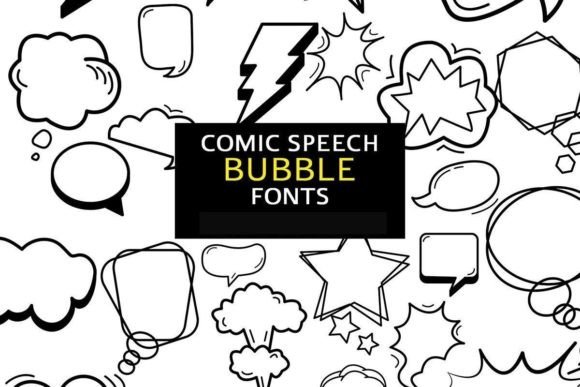
Introducing Comic Speech Bubble Font, the ultimate dingbat font that will add a touch of fun and cuteness to any project! Created by digitalplannerland, this font is not just your ordinary dingbat font - it is the Best Font For Web Browser.
With its captivating design and eye-catching appeal, Comic Speech Bubble Font is perfect for those who want to add a playful and whimsical touch to their creations. Whether you're designing a website, creating social media graphics, or working on a craft project, this font will bring your ideas to life in the most delightful way.
One of the greatest strengths of Comic Speech Bubble Font is its versatility. It can be used in a wide variety of projects, making it a must-have for designers and crafters alike. From planners and diaries to activity books and invitations, this font will take your creations to a whole new level.
Imagine creating a web page that instantly grabs your visitors' attention with its unique and quirky typography. With Comic Speech Bubble Font, you can easily achieve that wow factor and make your website stand out from the crowd. Your users will be instantly drawn to the charming speech bubbles and playful elements, enhancing their browsing experience.
Not only does Comic Speech Bubble Font offer a visually appealing experience, but it also provides a seamless integration with different web browsers. Its compatibility ensures that your website looks stunning and remains accessible to users across various platforms. Say goodbye to font compatibility issues and hello to a hassle-free design process!
But that's not all - Comic Speech Bubble Font goes beyond just aesthetics. It evokes a sense of joy and excitement, making your audience feel instantly connected to your brand or project. Whether you're targeting children, young adults, or the young at heart, this font will speak directly to their emotions and create a lasting impression.